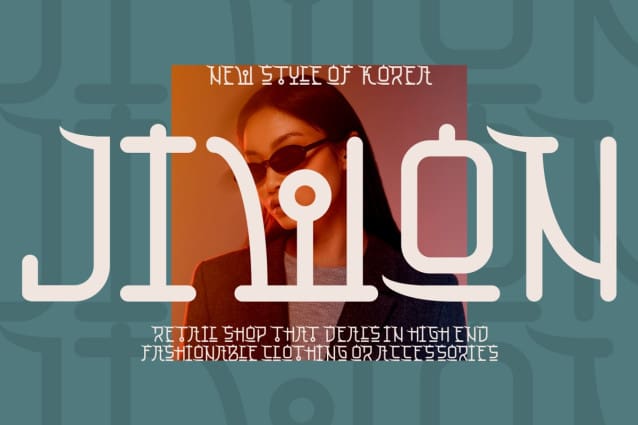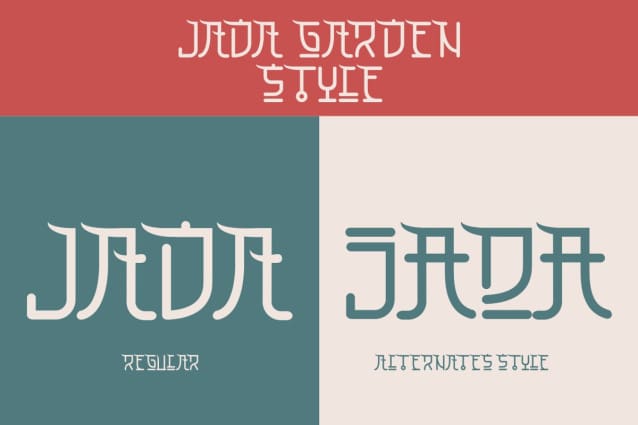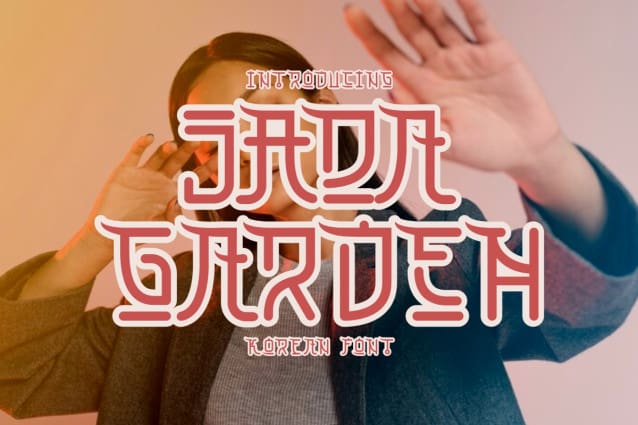
Jada Garden Font
Jada Garden Font is a Korean style font that captures the charm and elegance of Korean and Asian brush strokes. It is a display font that is perfect for adding a touch of whimsy and fun to your designs. Whether you are creating a logo, a branding, a children’s theme, a crafting project, an invitation, a packaging, a poster, a title, a business card, a greeting card, a sticker, a children’s book, a magazine, or any other design that relates to the font’s theme, Jada Garden will make it stand out with its quirky and playful characters.
Jada Garden is not just a single font; it is a font family that offers multiple letter variations that can be used alone or mixed and matched with others. You can customize your design by choosing from different alternates and ligatures that give your text a unique and dynamic look. JadaGarden is inspired by the popular culture of drakor and Asian culture, and it reflects the lively and expressive personality of its creators. It is more than a font; it is a way of expressing yourself with style and flair.